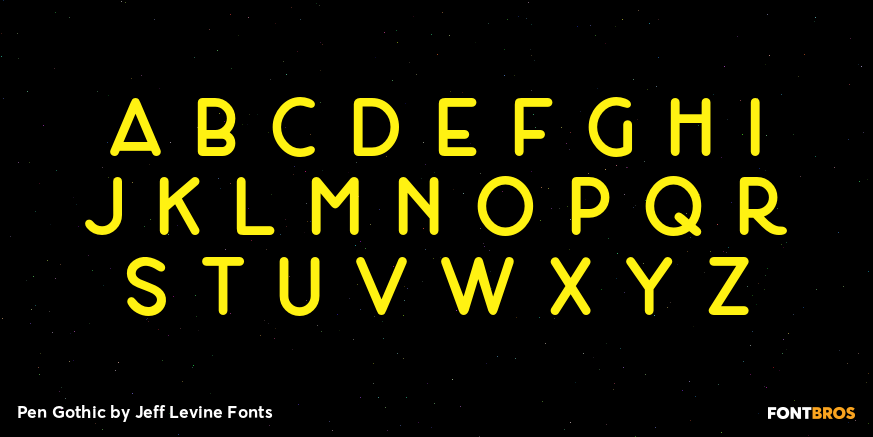
Pen Gothic
Pen Gothic JNL emulates lettering made with a round nib lettering pen, and is loosely based on some text found on the popular 1918 song 'Ja-Da”.
The font is available in regular and oblique versions.